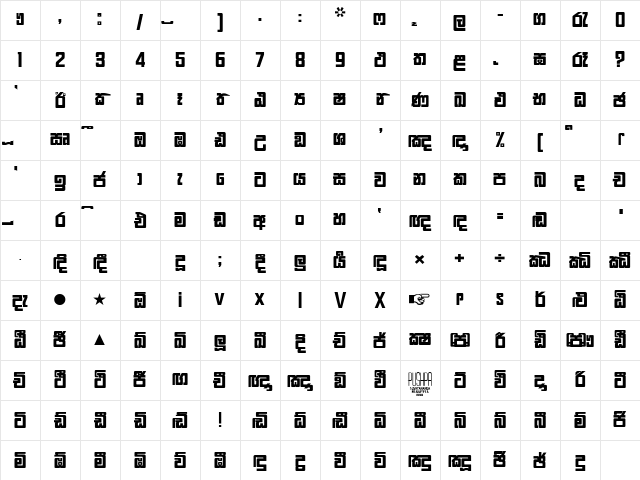
Design Context for FMGemunu
FMGemunu is a composed and adaptable typeface that performs quietly and consistently across a wide range of design contexts.
Pro Tip: Use FMGemunu in both headline and body roles to test its range before committing to a single application.